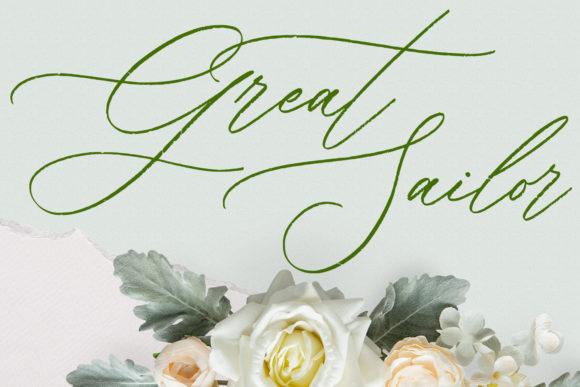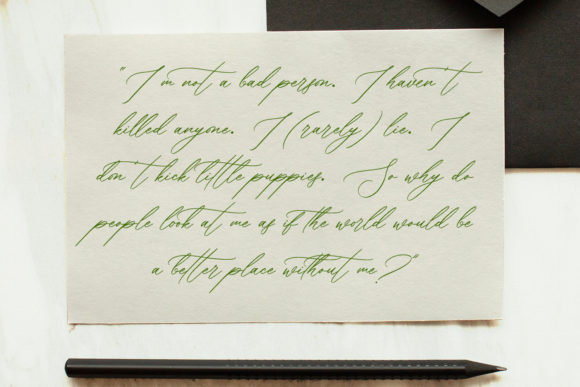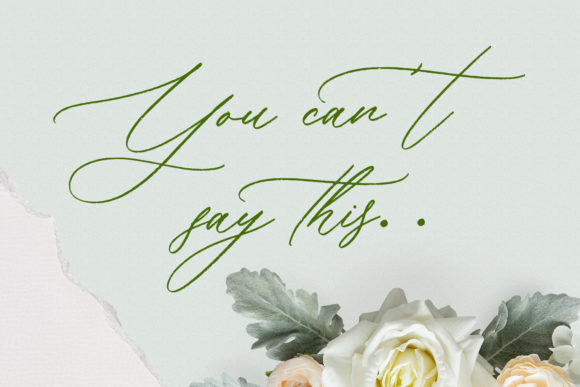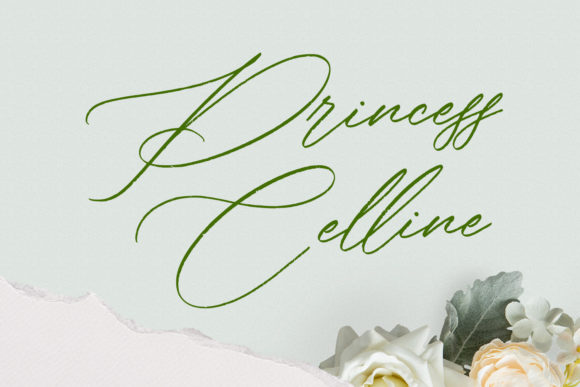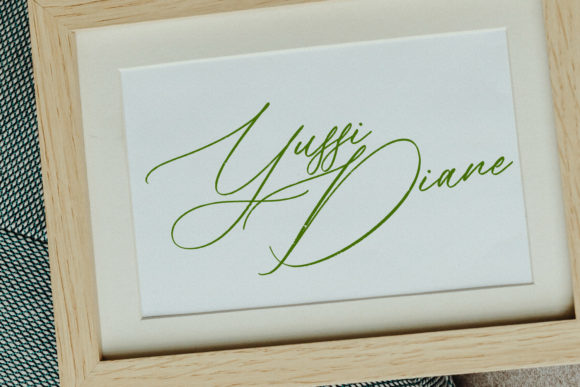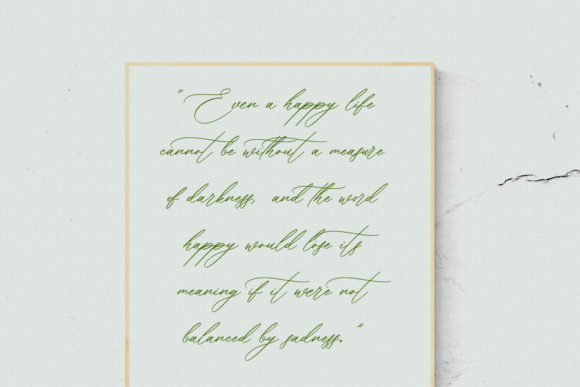
Discover the Timeless Elegance of Bellychestor Font
As a designer, you’ve probably found yourself stuck in a creative rut, scrolling through font libraries in search of the perfect inspiration. And then, it hits you – a spark of creativity that sets your imagination ablaze. For me, it was the first time I laid eyes on Bellychestor Font, a delicate script font that exudes elegance and sophistication.
Bellychestor Font is a masterclass in refined design, perfect for creating stunning wedding invitations, beautiful stationery, and eye-catching social media posts. Its versatility makes it a valuable asset for designers looking to elevate their work and leave a lasting impression on their audience. Whether you’re a seasoned pro or a budding designer, Bellychestor Font is sure to be a game-changer in your creative toolkit.
Bellychestor Font Key Features
- Font Family: Bellychestor Font is a custom font family designed for use in various digital and print media.
- Unique Characteristics: Bellychestor Font features a unique blend of modern and classic elements, with distinctive letterforms and subtle flair, making it ideal for creative and professional projects.
Bellychestor Font Review
I’ve had the chance to work with Bellychestor Font, and here’s my honest take on it.
- Unique aesthetic – Bellychestor Font has a distinctive, quirky feel that can add a touch of personality to your designs.
- Good legibility – Despite its unusual shape, the font is relatively easy to read, even at smaller sizes.
- Wide character set – Bellychestor Font includes a wide range of characters, including punctuation and symbols.
- Limited language support – Bellychestor Font may not include the characters and symbols necessary for non-Latin languages.
- Not ideal for body text – Due to its quirky shape, Bellychestor Font may not be the best choice for large blocks of text.
- May not be suitable for print – The font’s unusual shape may not reproduce well in print, leading to potential issues with text clarity.
Overall impression
Bellychestor Font is a great choice for designers looking to add a touch of whimsy to their work. While it may not be suitable for every project, it’s a great option for titles, headings, and other display text. Just be mindful of its limitations, and you’ll be able to get the most out of this unique font.
The Bellychestor Font is ideal for:
- Typography-based art and graphics.
Tips for Getting the Most Out of Bellychestor Font
For the best results, use the Bellychestor Font in conjunction with other elegant and sophisticated design elements. Experiment with different font sizes, colors, and combinations to achieve a unique look.
Alternatives to Bellychestor Font
Playfair Display is a high-end serif font ideal for luxury branding and high-end designs. It features elegant, refined lines and subtle flourishes, making it perfect for wedding invitations, fine dining menus, and other upscale applications. Compared to Bellychestor Font, Playfair Display is more ornate and sophisticated, with a more traditional feel.
Great Vibes is a modern script font that works well for creative and artistic projects. It features a flowing, handwritten feel that’s perfect for quotes, headings, and other text elements that require a touch of personality. Compared to Bellychestor Font, Great Vibes is more casual and relaxed, with a softer, more organic feel.